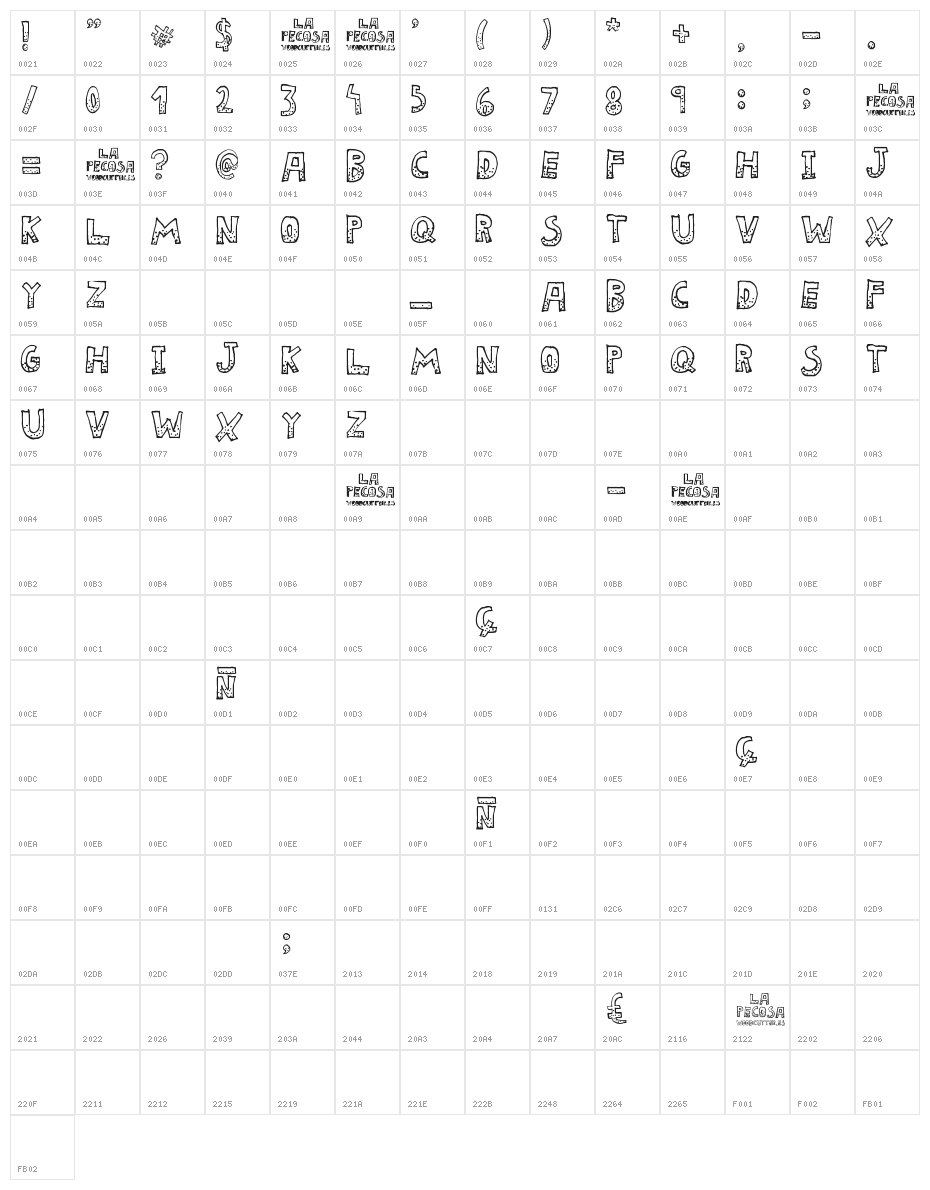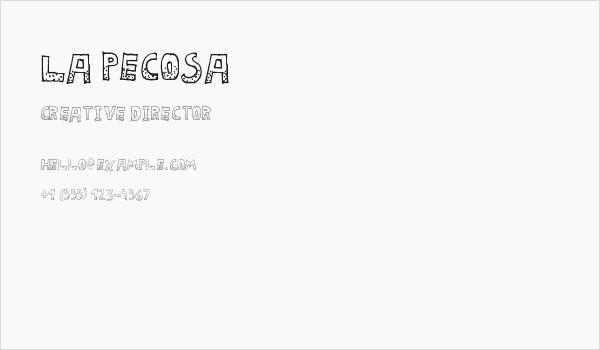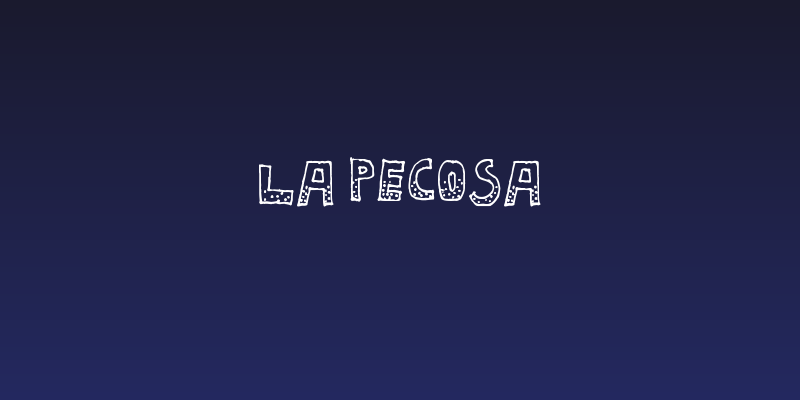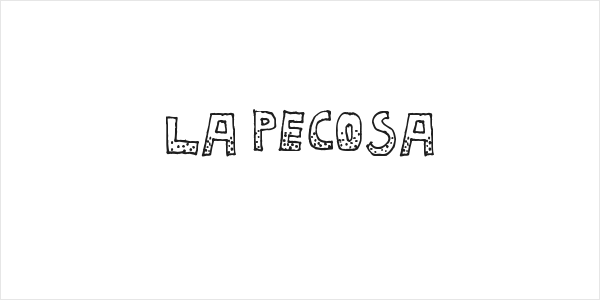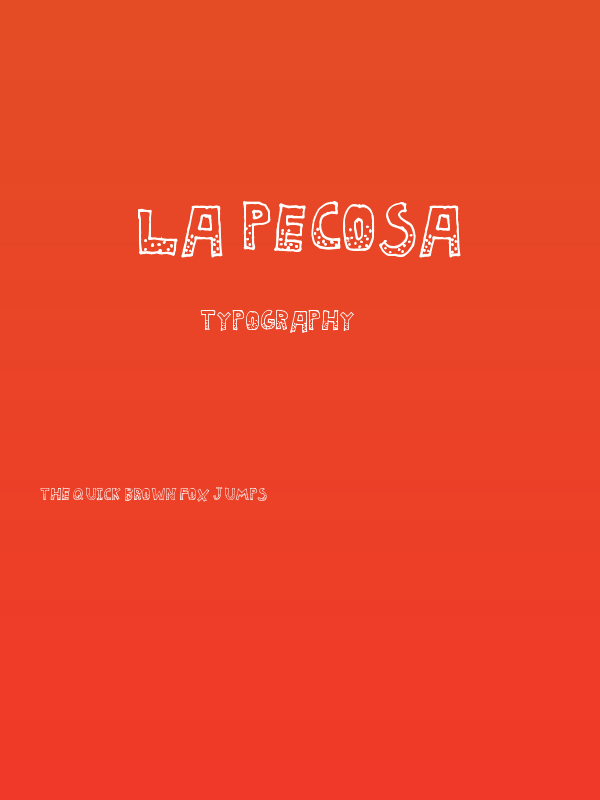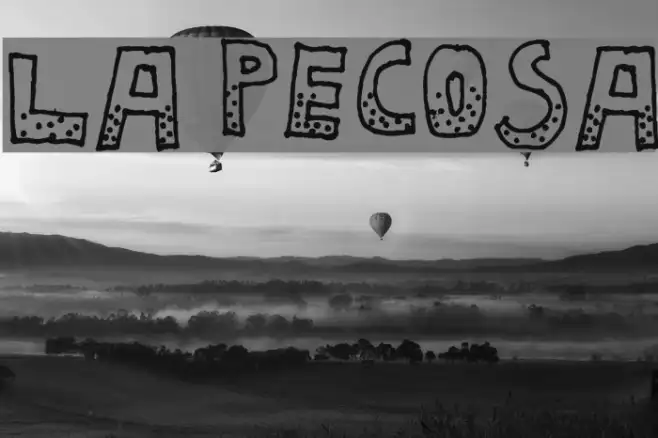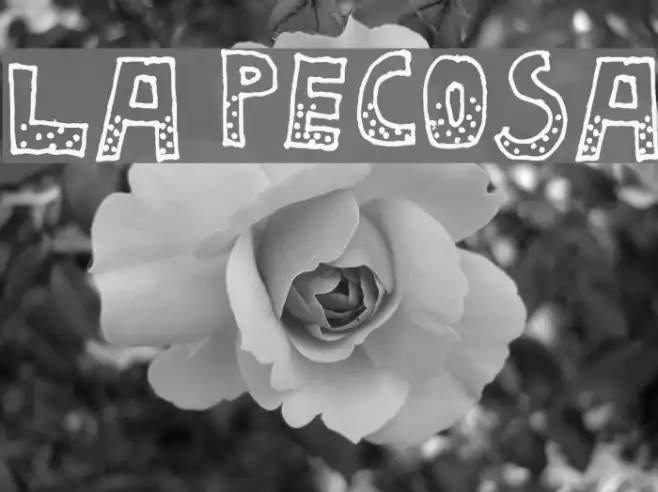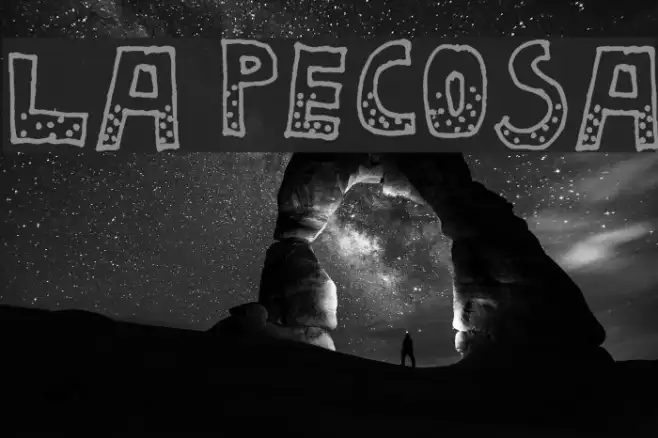
La Pecosa Font
La Pecosa Description
This playful and quirky font features bold, hand-drawn letters with a unique dotted texture inside each character. The uppercase and lowercase alphabets maintain a consistent style, with slightly irregular lines that add to its charm. Numbers and special characters follow the same design, ensuring a cohesive look across all elements. The font's whimsical nature makes it stand out, perfect for projects that require a fun and informal touch.
LA-PECOSA UPPERCASE
LA-PECOSA LOWERCASE
LA-PECOSA OTHER CHARS